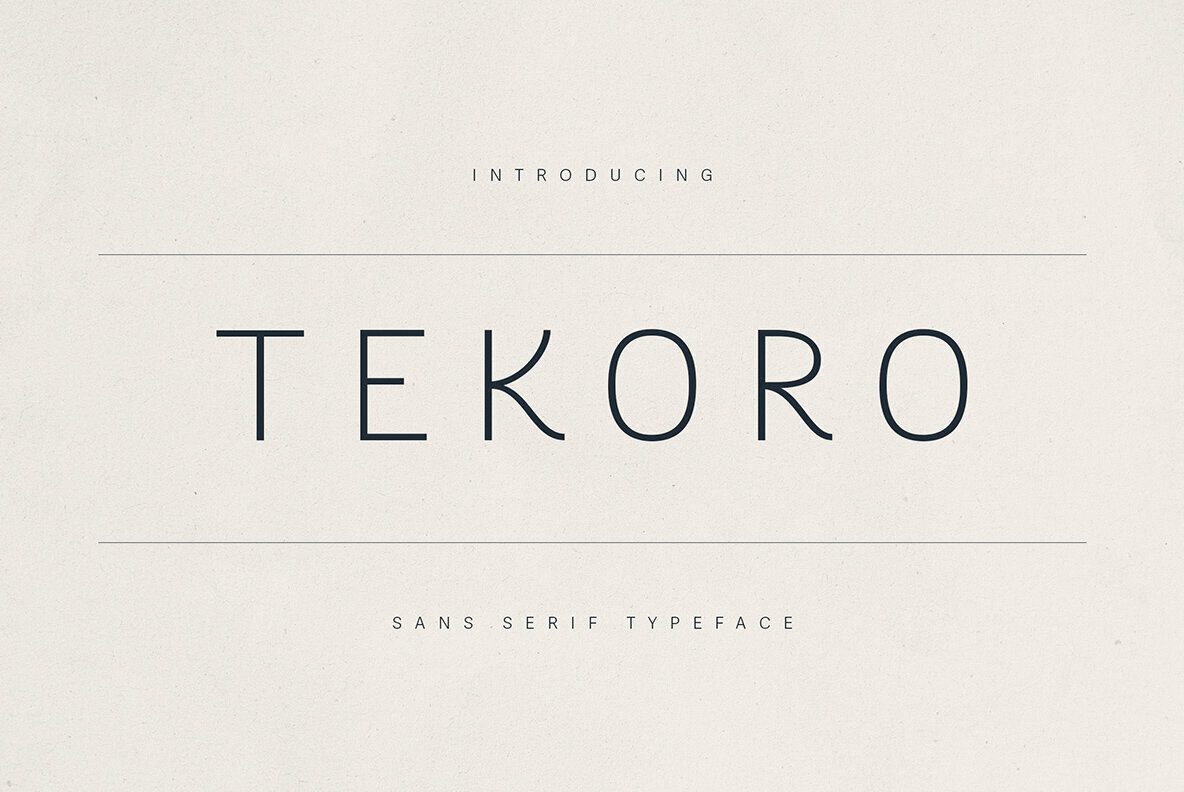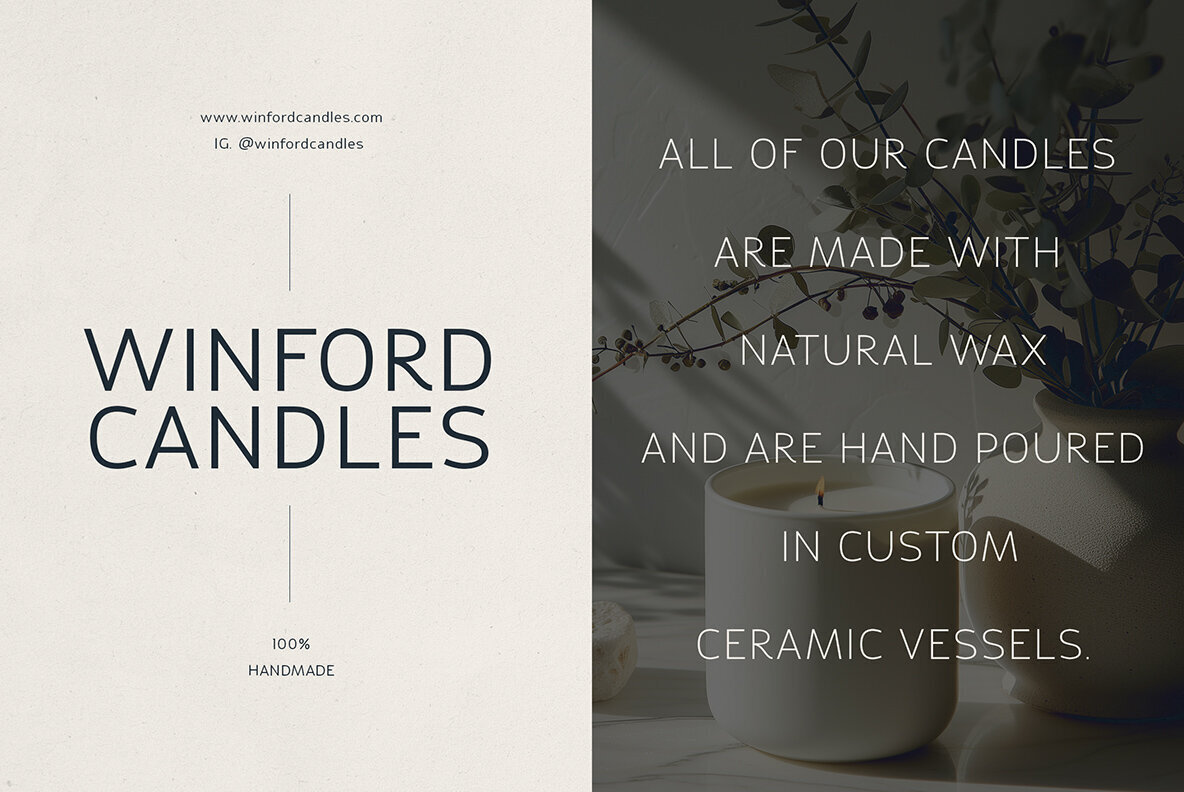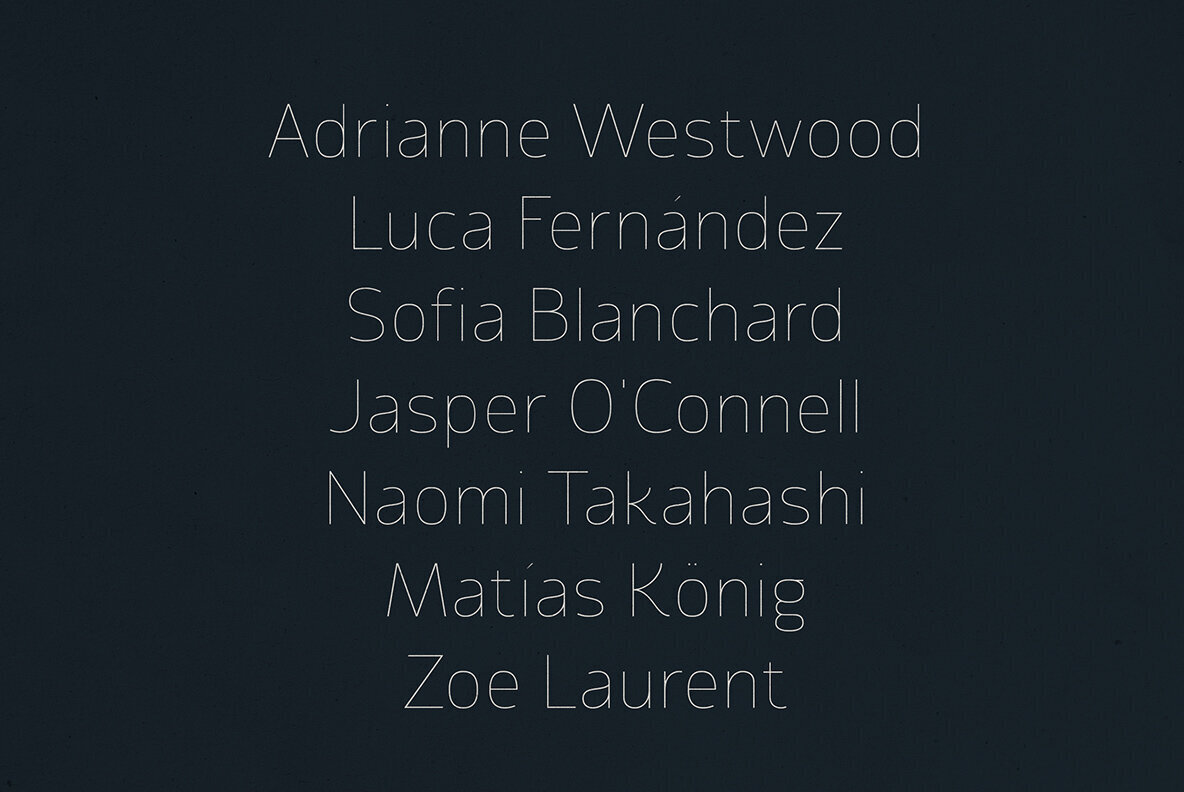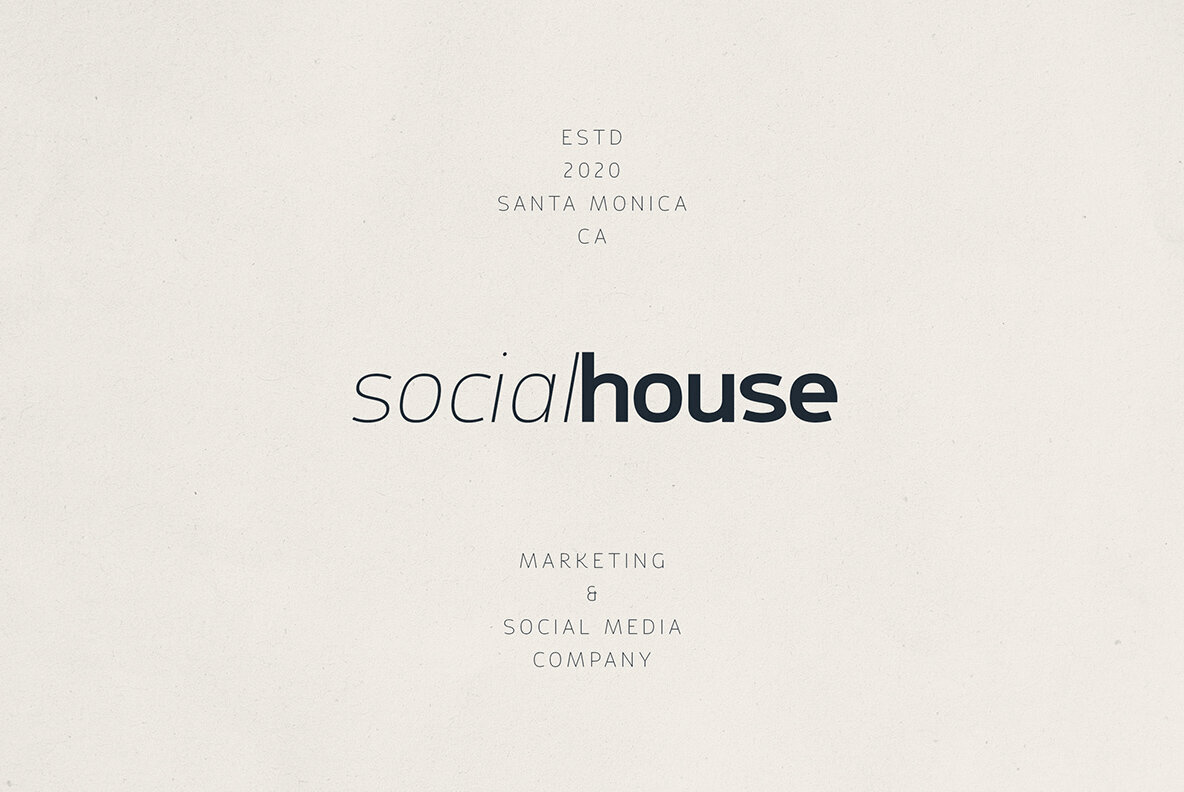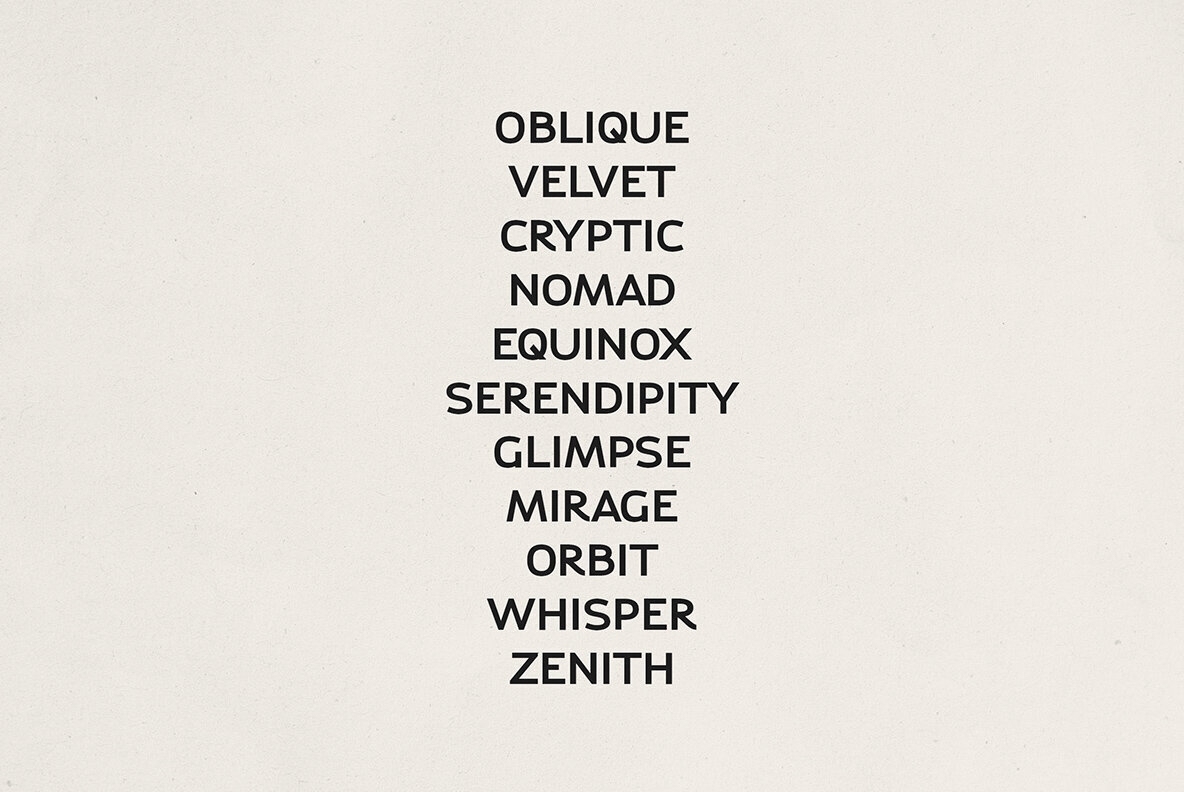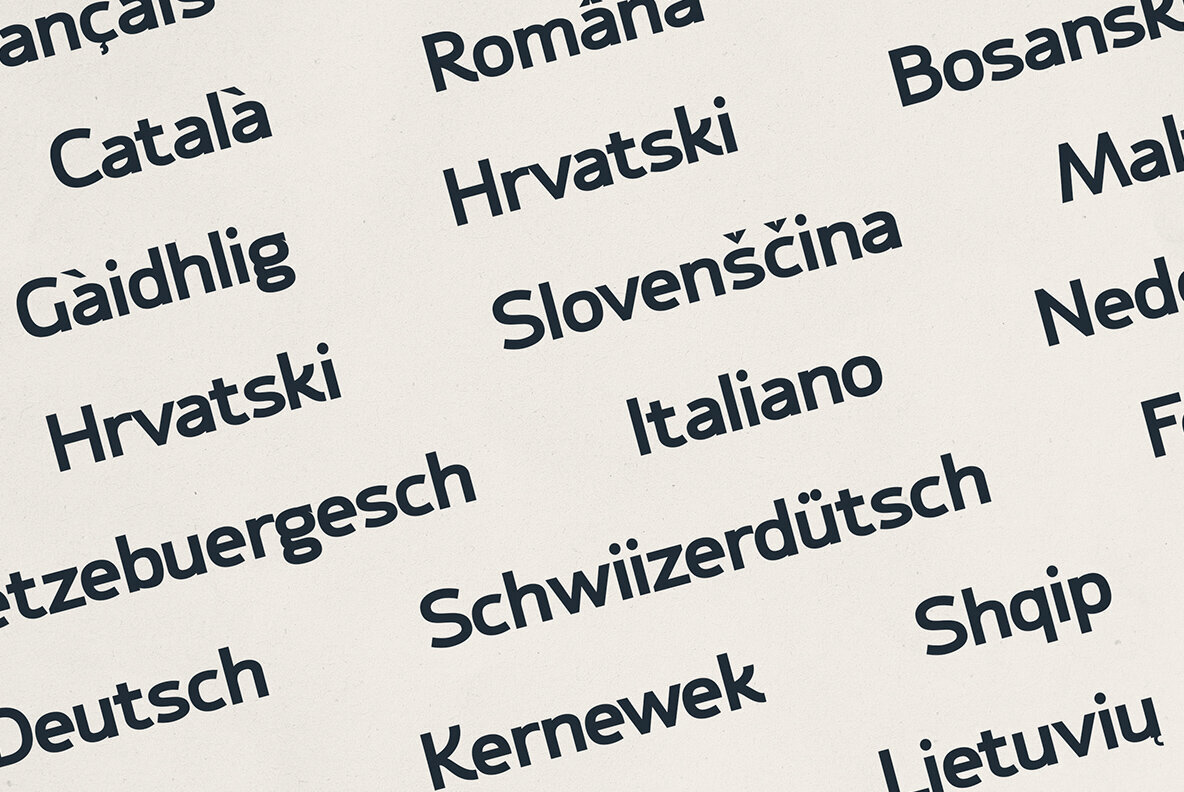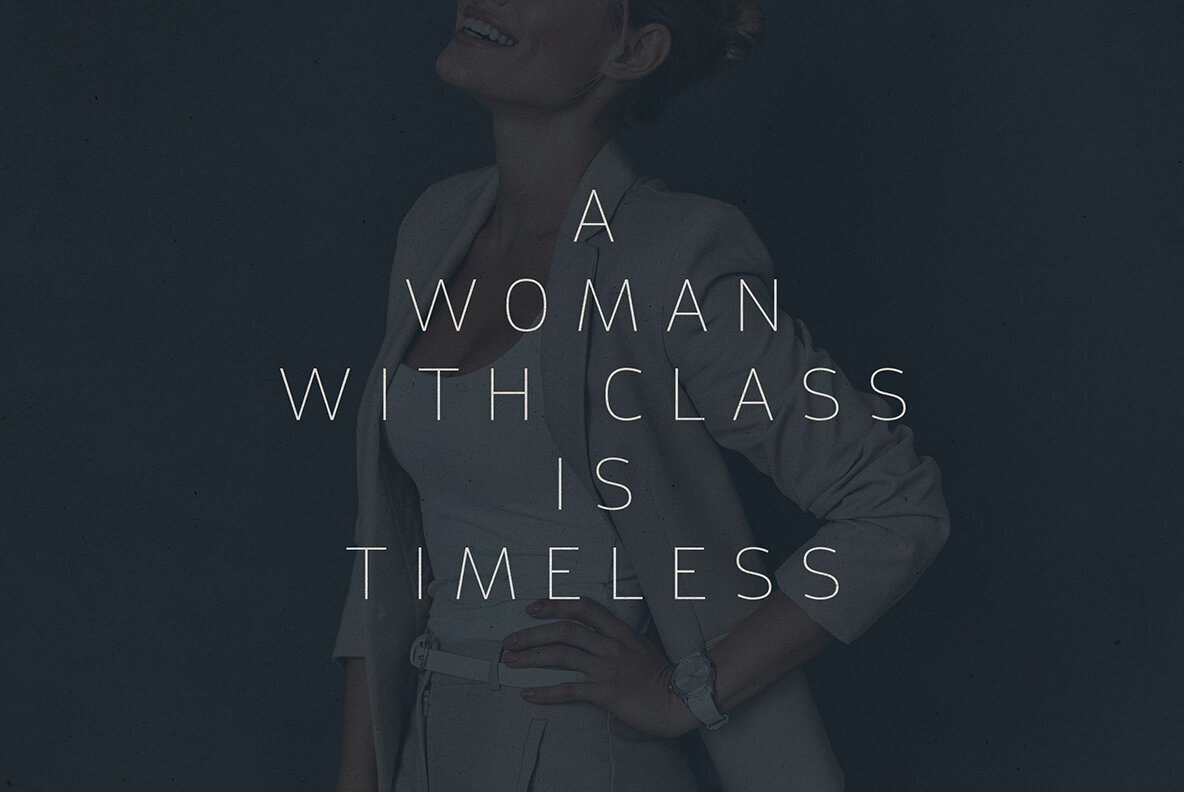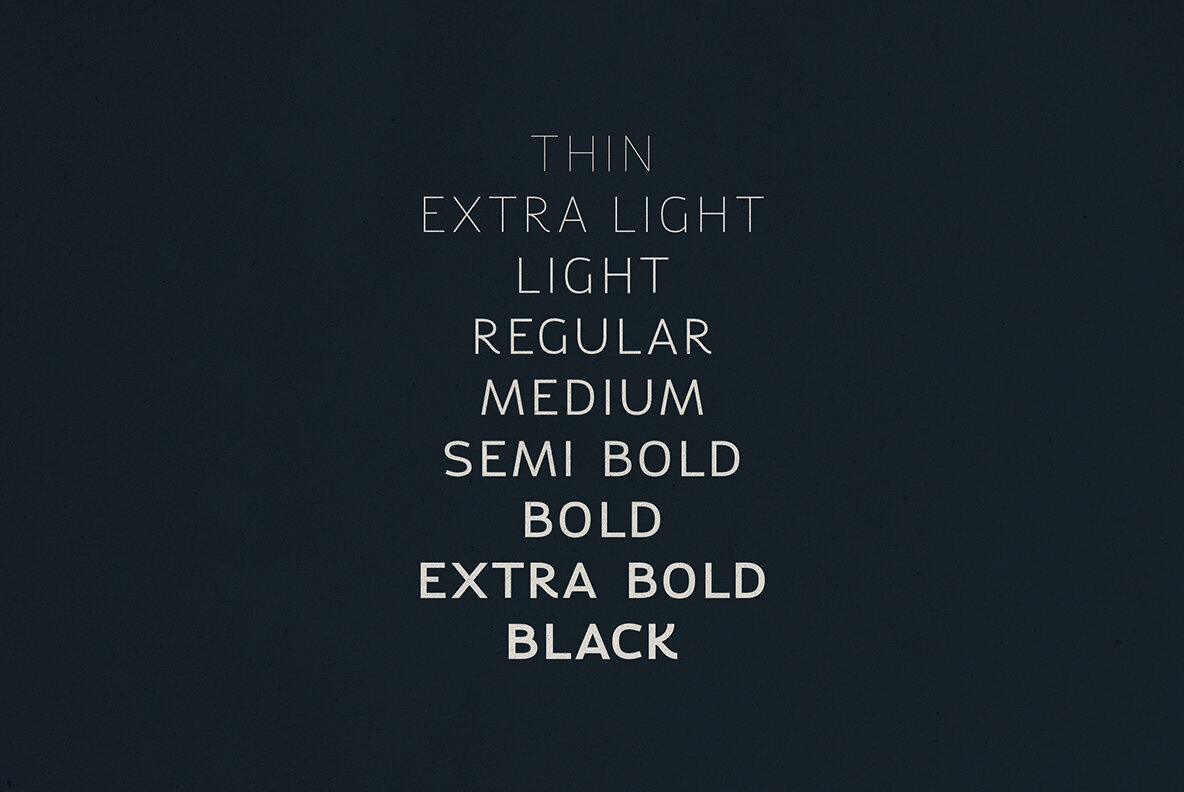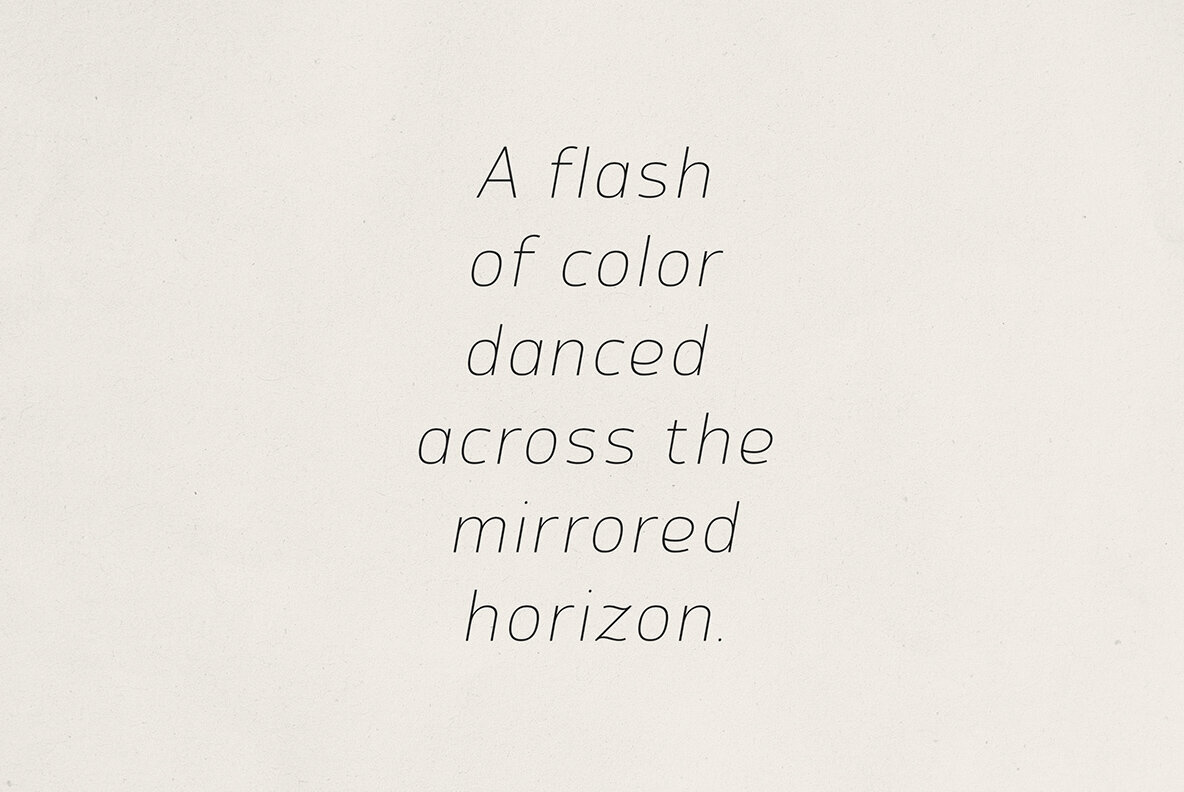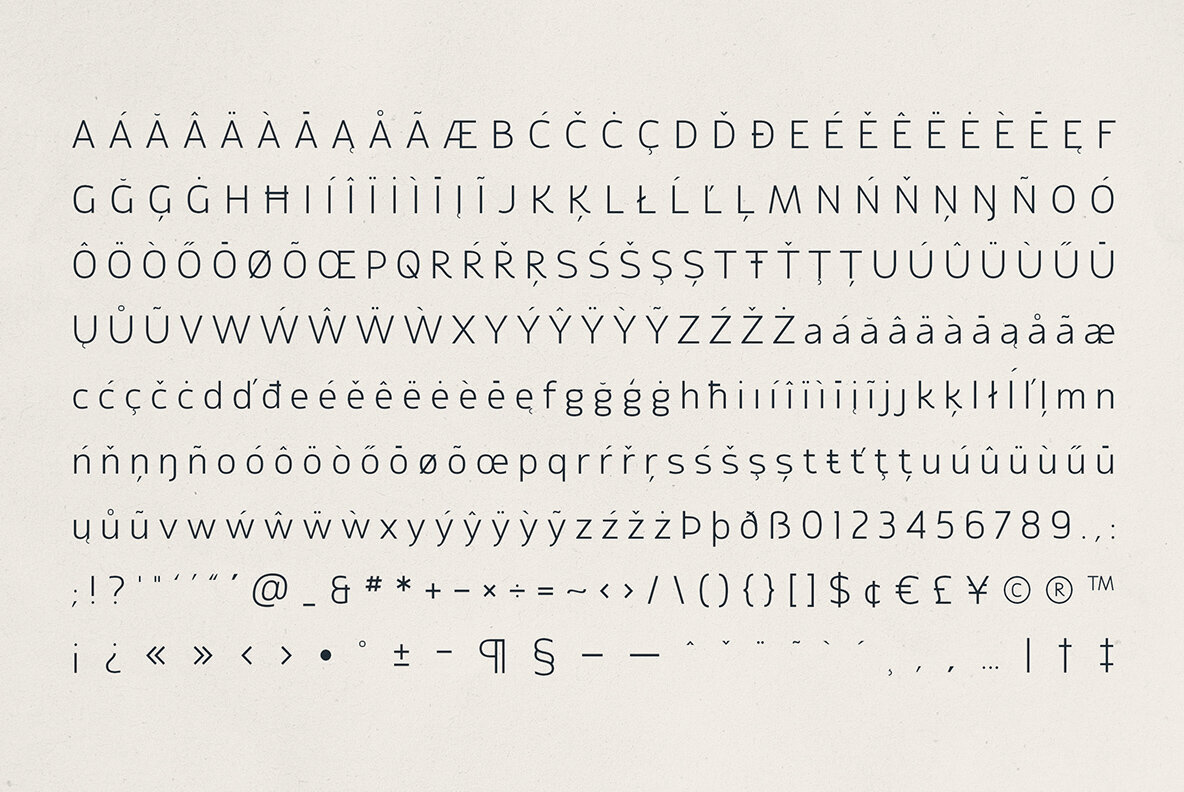
Tekoro Font
Tekoro is the epitome of sleek sophistication, embodying geometric precision and minimalist elegance. Tailored for modern branding, UI design, packaging, and editorial work, this sans serif font infuses clarity and contemporary flair into any project. With its clean lines, subtle quirks, and rounded terminals, Tekoro balances functionality with character, making it ideal for premium lifestyle brands, startups, and creative professionals. Available in nine weights ranging from Thin to Black, and supporting over 85 languages, Tekoro’s versatility elevates everything from fashion brand identities to digital interfaces and magazine spreads. Tekoro is meticulously designed for both print and digital media, fitting seamlessly into logos, posters, social media graphics, websites, and minimalist product packaging. Its extensive language support includes Afrikaans, Albanian, Basque, French, German, Swedish, and many more, ensuring global accessibility and application. Whether crafting a chic fashion label or designing an innovative tech interface, Tekoro adapts effortlessly across diverse mediums.Tekoro Typeface: Minimalist Geometric Sans Serif
Comprehensive Design Flexibility